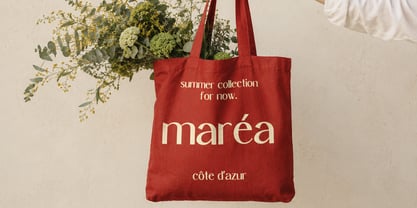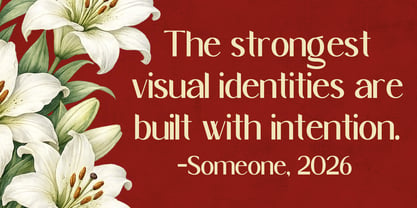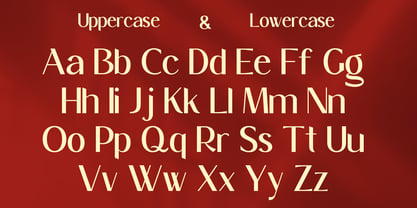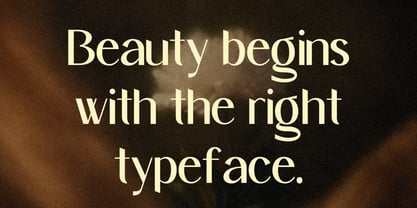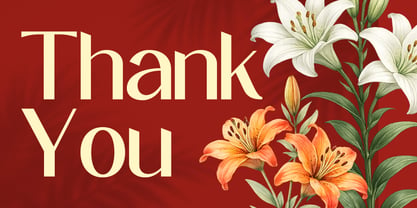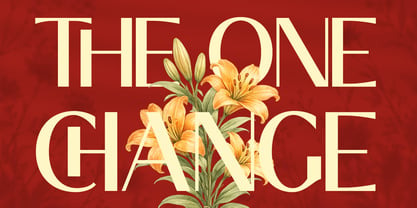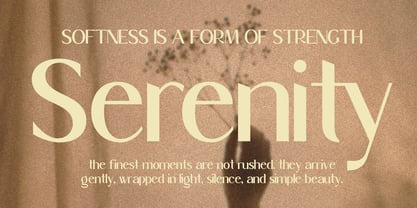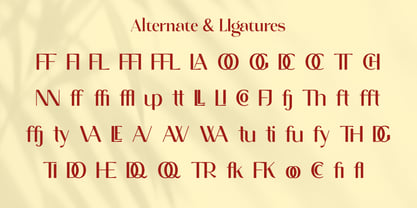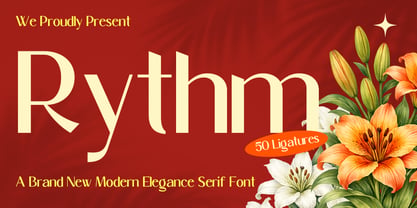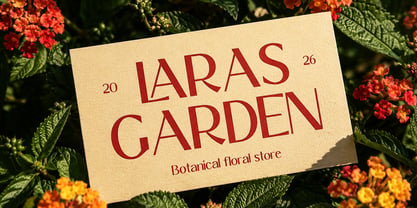
Rythm
Rythm is a modern elegance serif typeface that strikes the perfect balance between contemporary clarity and classical grace. With its refined proportions, high-contrast strokes, and an impressive collection of 50 ligatures and alternates, Rythm gives designers the expressive typographic range needed to craft truly distinctive brand identities and editorial layouts. Every letterform is drawn with intention — clean enough for modern minimalism, characterful enough for premium luxury work.
From botanical business cards and fashion tote bags to billboard campaigns and book covers, Rythm moves effortlessly across contexts while always maintaining its quiet, confident elegance.